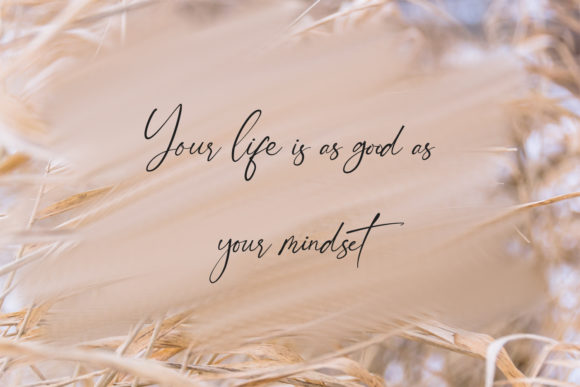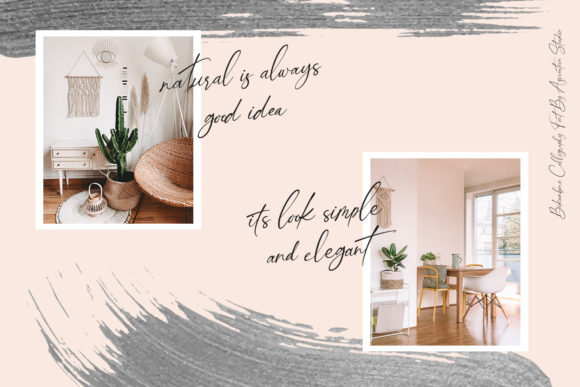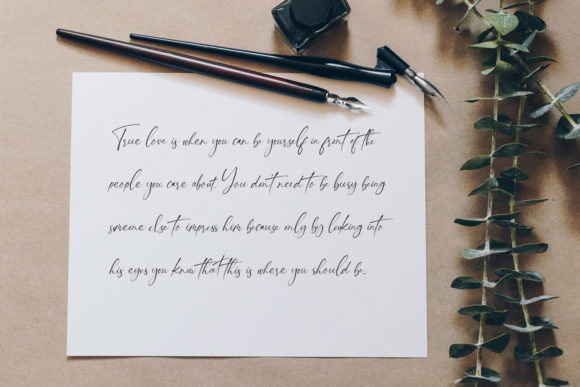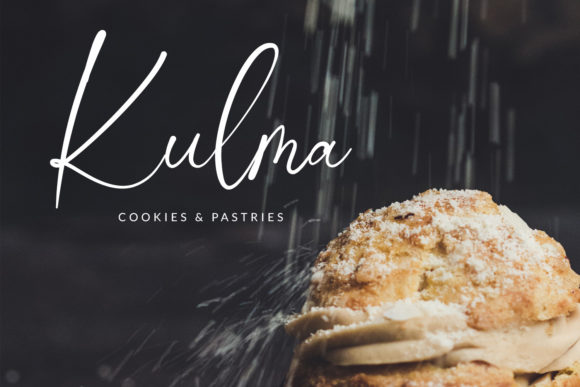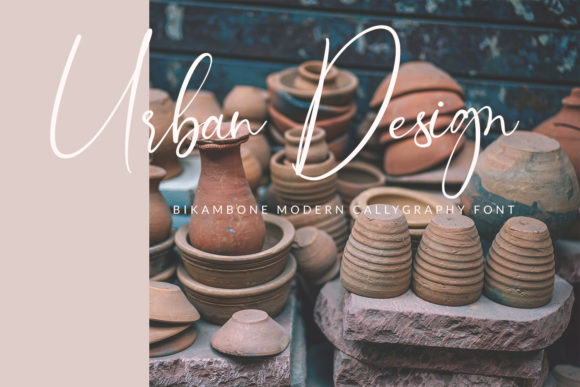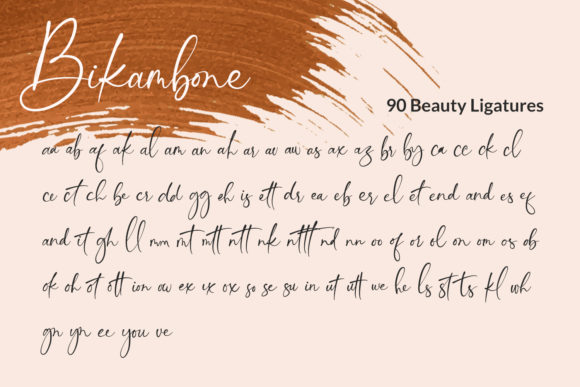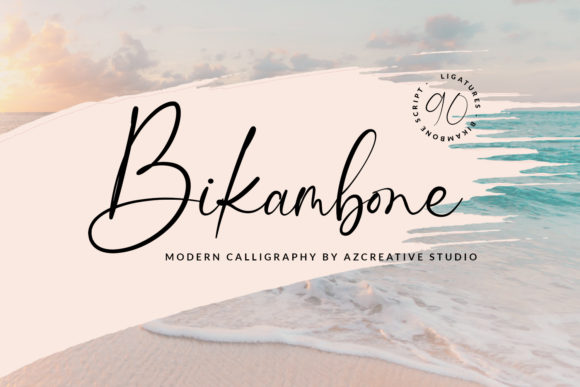
Bikambone Font: Elevate Your Designs with Elegance and Charm
Are you on the hunt for a font that exudes elegance, charm, and a touch of classic sophistication? Look no further than the Bikambone font. This stunning handwritten font is a stylish homage to traditional calligraphy, offering a unique blend of refinement and playfulness that is sure to elevate your designs to new heights.
A Closer Look at Bikambone’s Distinctive Features
So, what sets Bikambone apart from other fonts? For starters, its varying baseline gives it a delightfully organic and human feel, as if it were penned by hand. The smooth lines and gorgeous glyphs add to its allure, creating a visually appealing aesthetic that is both charming and sophisticated. Whether you’re working on a branding project, crafting a beautiful wedding invitation, or designing a stylish stationery set, Bikambone is sure to make a lasting impression.
The Power of PUA Encoding
One of the standout features of the Bikambone font is its PUA (Private Use Area) encoding. This means that you can easily access all of the font’s gorgeous glyphs and swashes without needing any special software or technical expertise. With PUA encoding, you can simply click and insert the characters you want to use, making it easy to add a touch of elegance and whimsy to your designs.
A Wealth of Special Features
Bikambone is more than just a pretty face – it’s also packed with a range of special features that make it incredibly versatile and user-friendly. These include:
• Alternate glyphs: Switch between different versions of letters and characters to add variety and interest to your designs.
• Ligatures: Combine letters and characters in creative ways to create a unique and eye-catching look.
• Swashes: Add a touch of drama and flair to your designs with beautiful, flowing swashes.
Whether you’re a professional designer or a crafty DIY enthusiast, Bikambone is the perfect font for anyone looking to add a touch of elegance and sophistication to their work. With its unique blend of classic charm and modern style, Bikambone is sure to inspire your creativity and help you create stunning designs that stand out from the crowd.
Using Bikambone in Your Designs
So, how can you use Bikambone in your designs? Here are a few ideas to get you started:
• Branding: Use Bikambone as a logo font or for packaging design to add a touch of elegance and sophistication.
• Wedding design: Create beautiful wedding invitations, stationery, and decor with Bikambone’s charming and romantic feel.
• Stationery: Use Bikambone to create stylish notebooks, journals, and planners that are perfect for everyday use.
In conclusion, the Bikambone font is a stunning and versatile addition to any designer’s toolkit. With its elegant charm, gorgeous glyphs, and range of special features, Bikambone is the perfect choice for anyone looking to elevate their designs and add a touch of sophistication. Whether you’re a professional designer or a crafty DIY enthusiast, Bikambone is sure to inspire your creativity and help you create beautiful, eye-catching designs that stand out from the crowd.